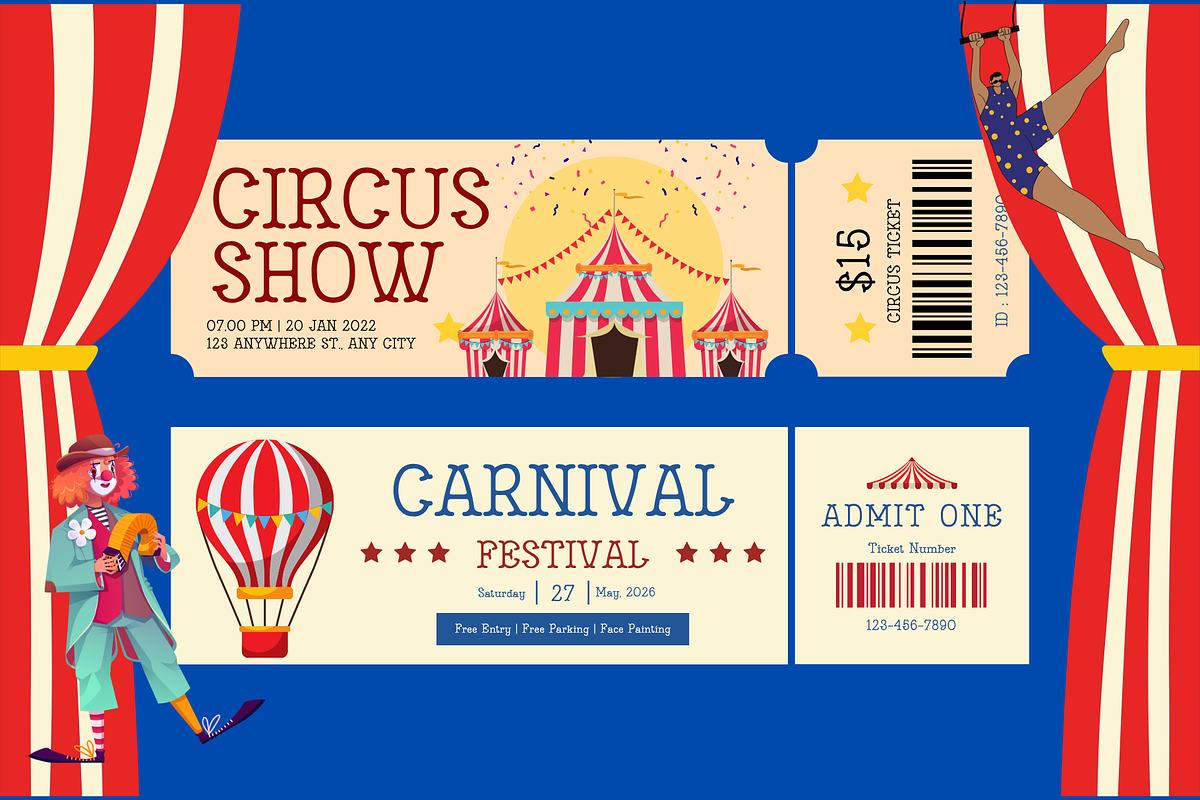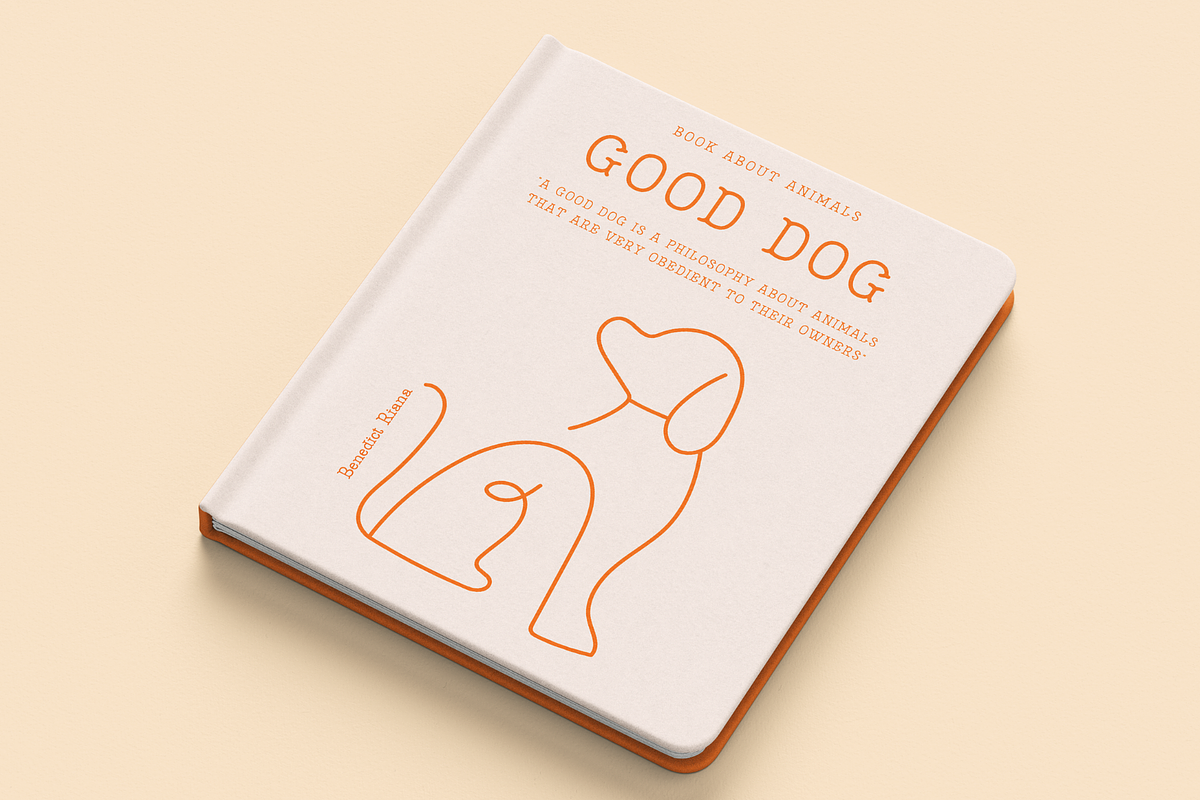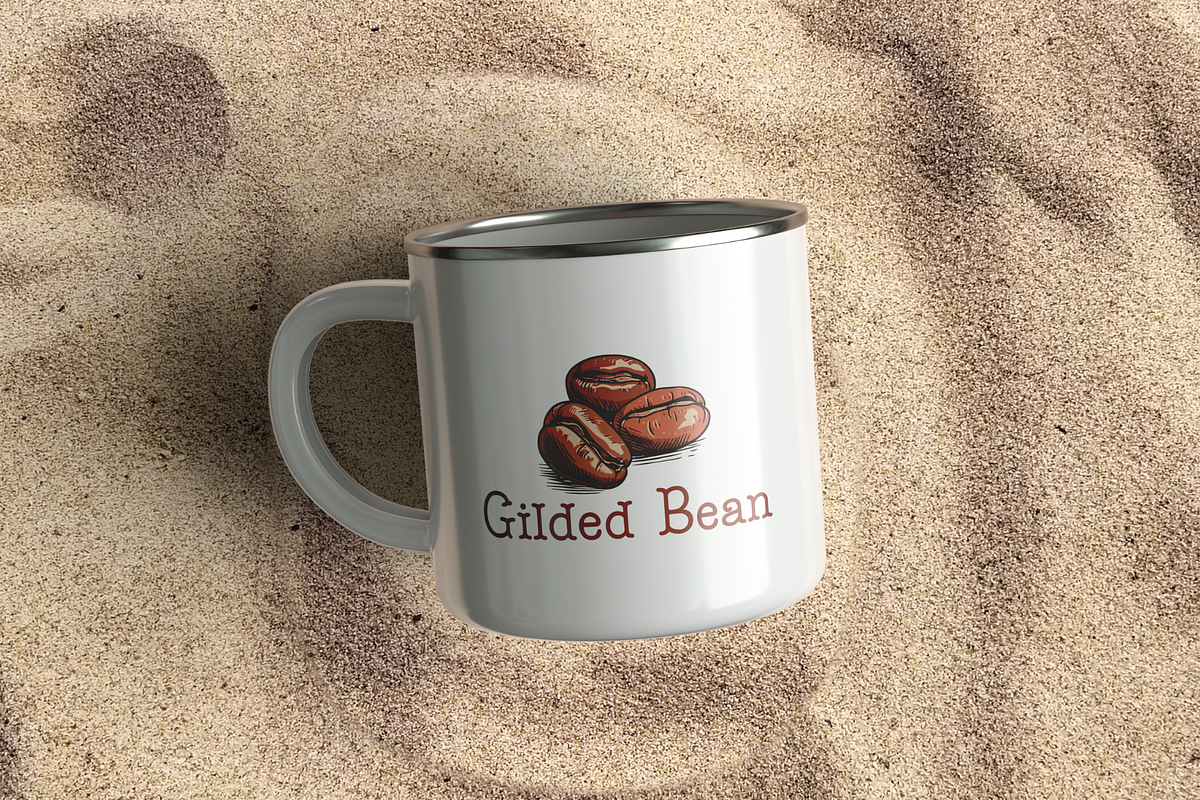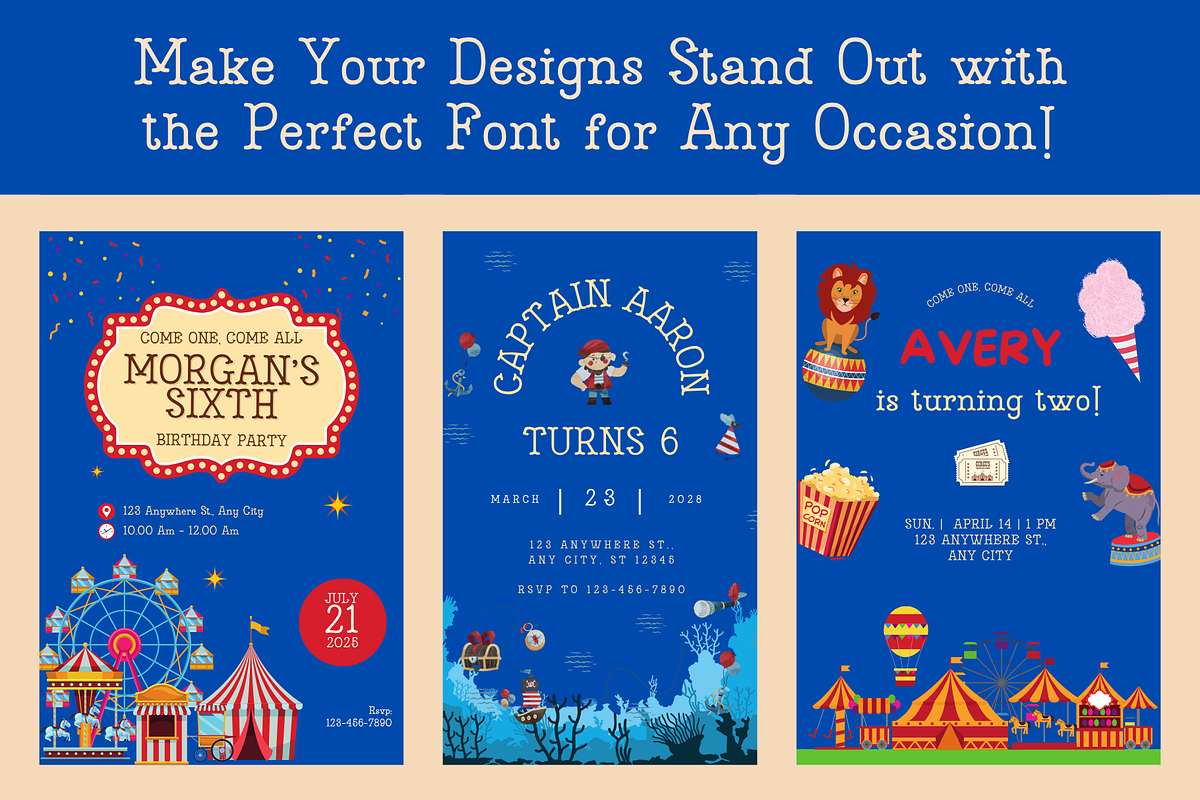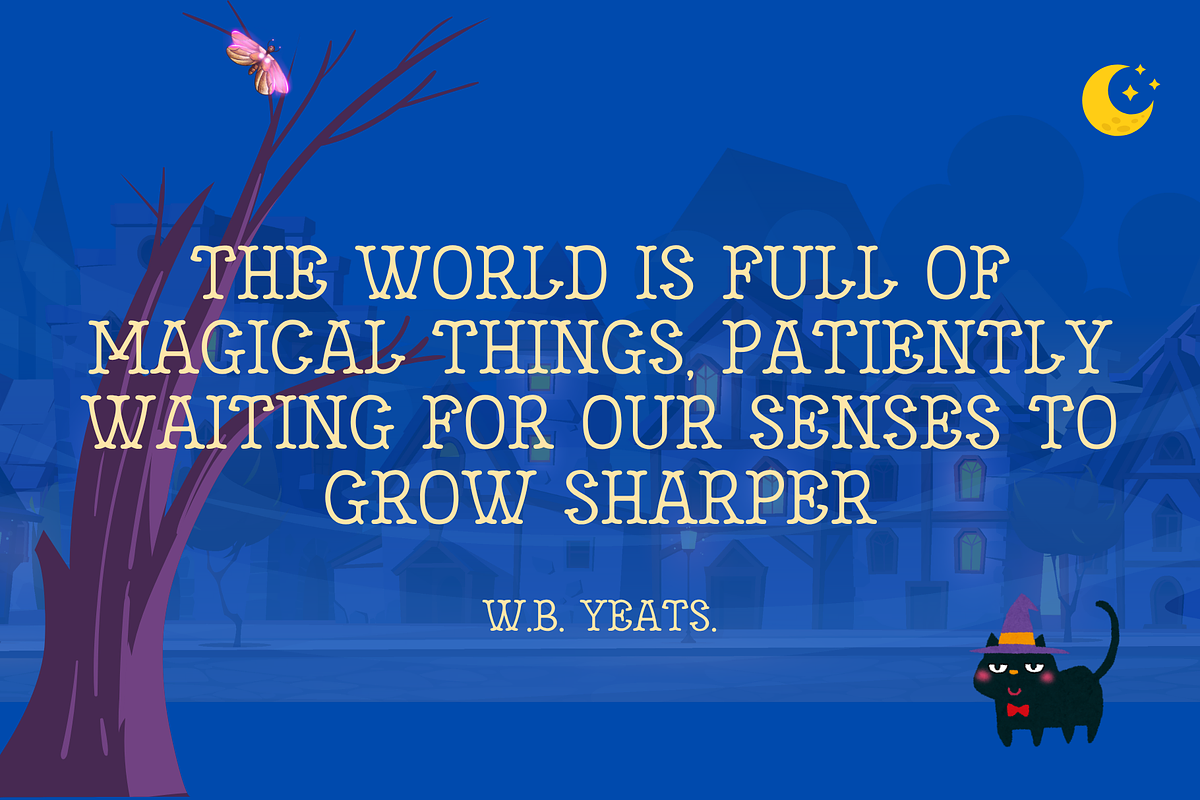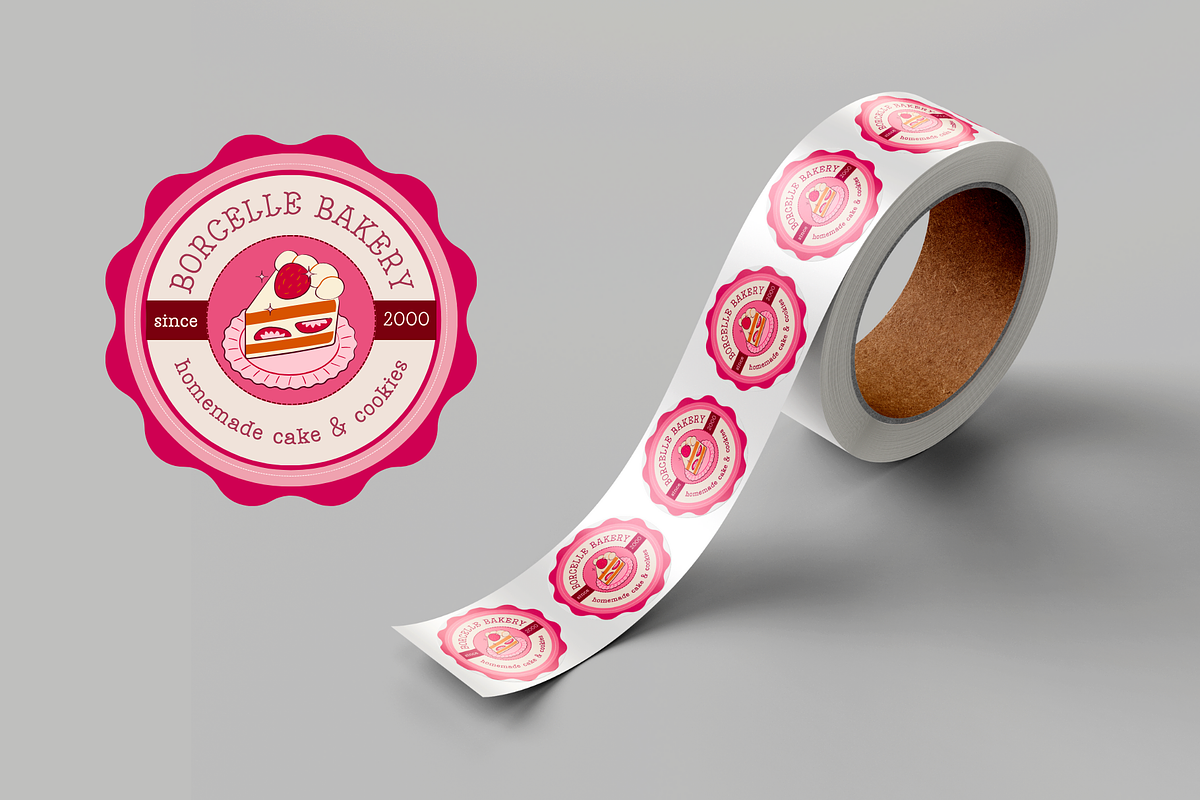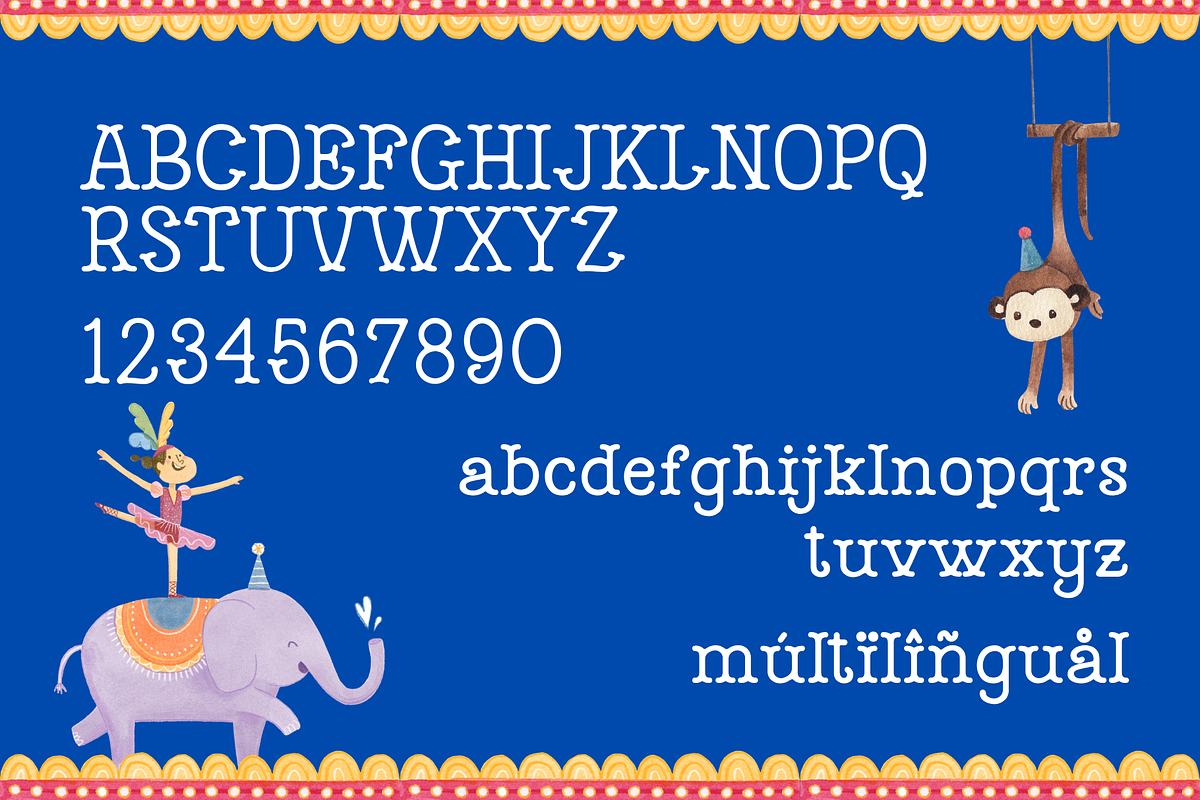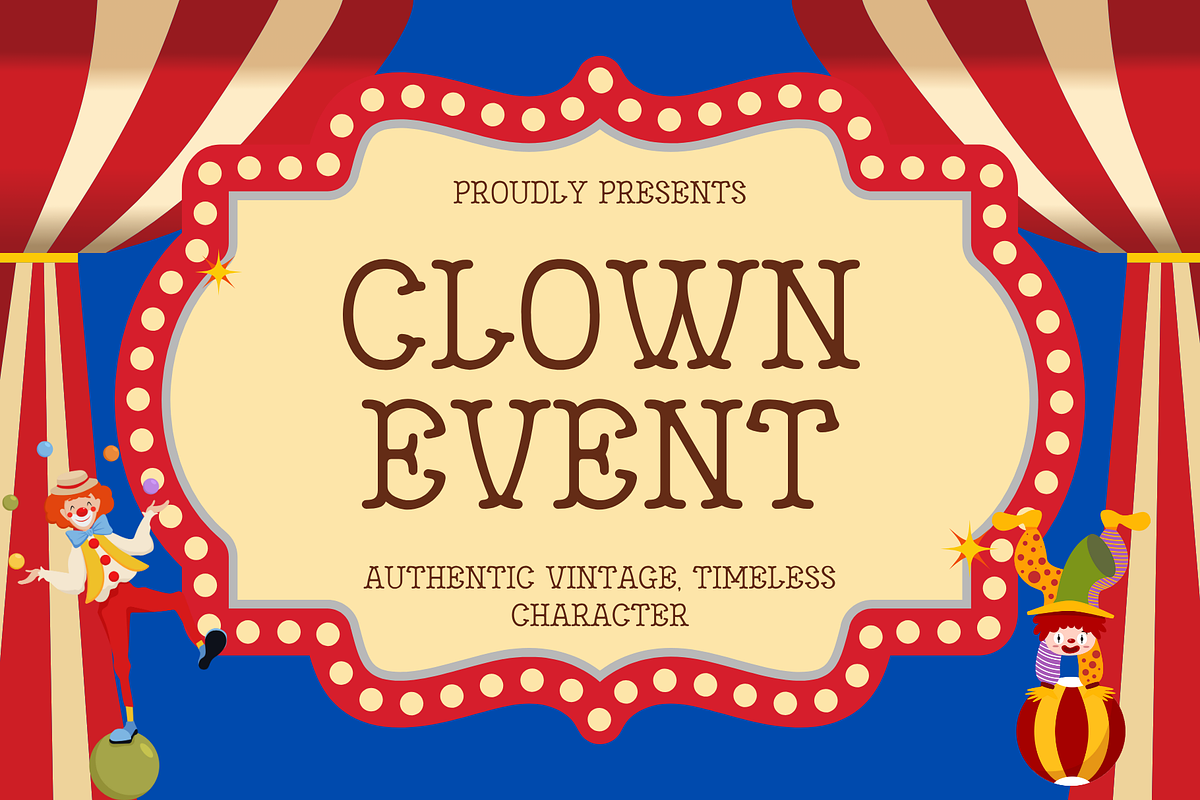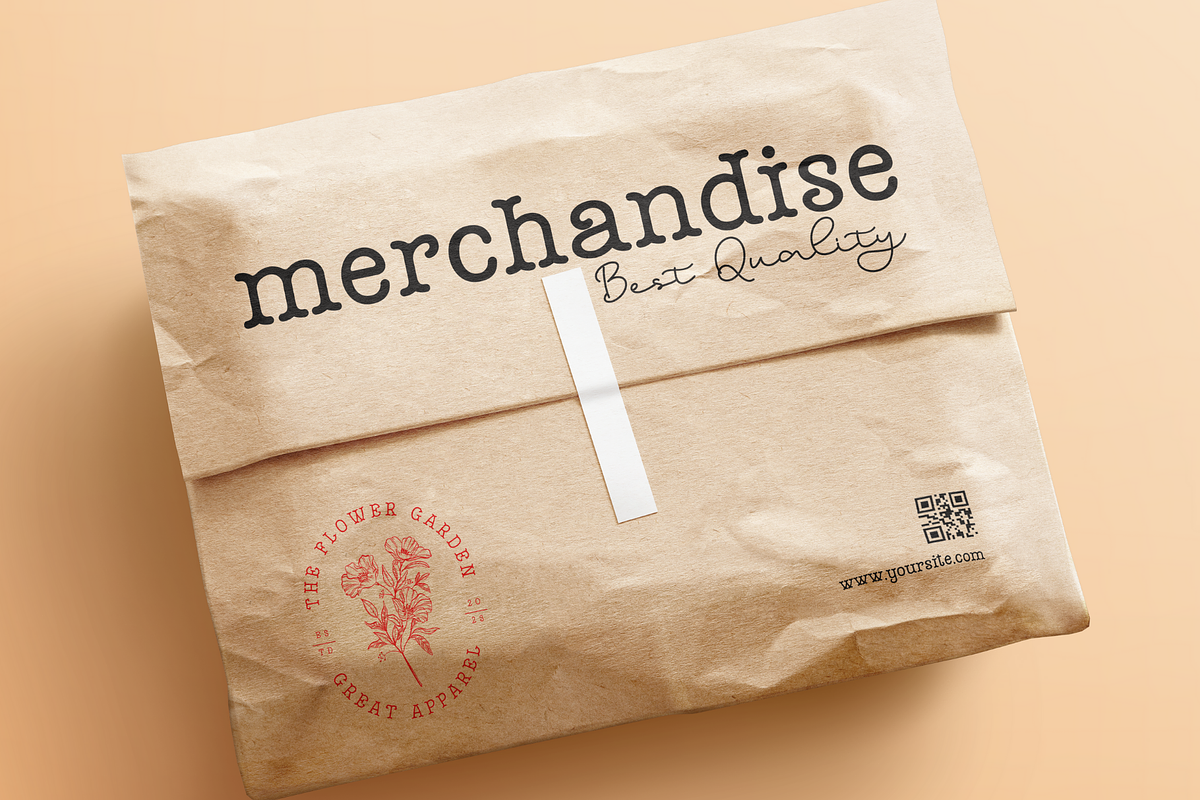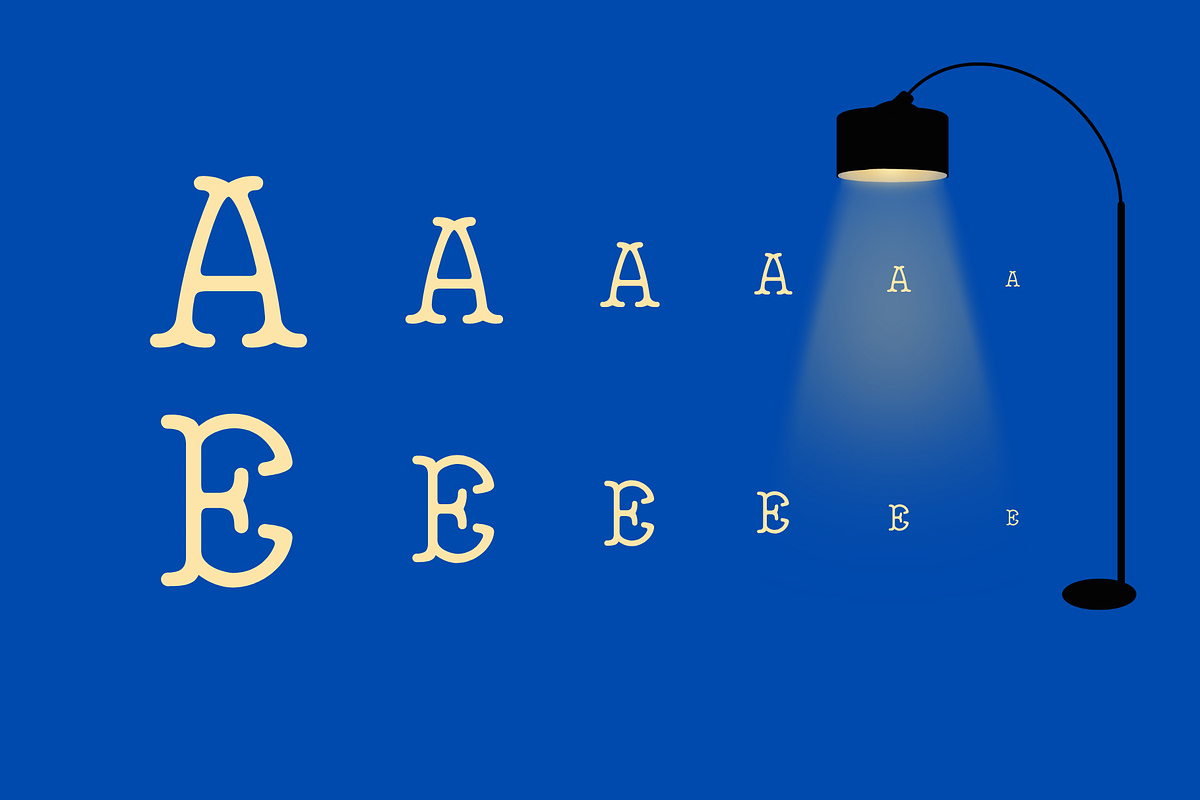
Clown Event - A Vintage Typewriter
THE AUTHENTIC VINTAGE FONT YOUR DESIGNS ARE CRAVING.
Tired of clean, sterile fonts that lack personality? Step into a world of nostalgic charm with Clown Event, a slab serif font that feels like it was lifted directly from a classic typewriter or a vintage circus poster.
We didn't just make a font. We crafted a feeling—the warmth of old paper, the character of letterpress ink, and the magic of a timeless story.
🔥 WHY CLOWN EVENT IS YOUR SECRET WEAPON:
Instant Nostalgia, Zero Effort: The authentic, built-in texture gives your work an immediate retro feel without needing extra effects. It’s character in a click.
Headlines That Can't Be Ignored: The strong, sturdy slab serifs are designed to be powerful and clear, making them perfect for titles, logos, and posters that need to grab attention.
One Perfect, Versatile Style: No need to sort through dozens of weights. We perfected this single "Regular" style to be the ideal workhorse for all your vintage-themed display needs.
Complete & Professional Set: With 219 essential glyphs, you have everything you need—uppercase, lowercase, numbers, and extensive punctuation—to complete your project professionally.
🎪 IDEAL FOR:
- Branding: Create unforgettable logos and packaging for coffee shops, bookstores, barbershops, and craft product businesses.
- Events: Design authentic-looking posters for markets, fairs, magic shows, and music festivals.
- Content Creation: Make your social media quotes, YouTube thumbnails, and blog headlines stand out with a touch of retro flair.
- Publishing: Perfect for eye-catching book covers or magazine titles.